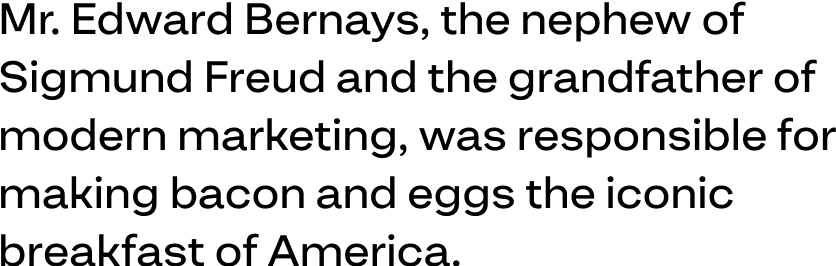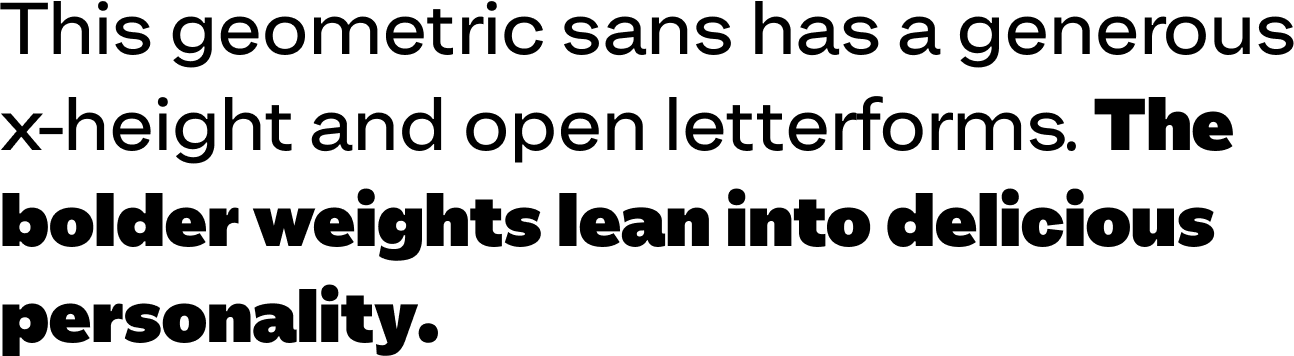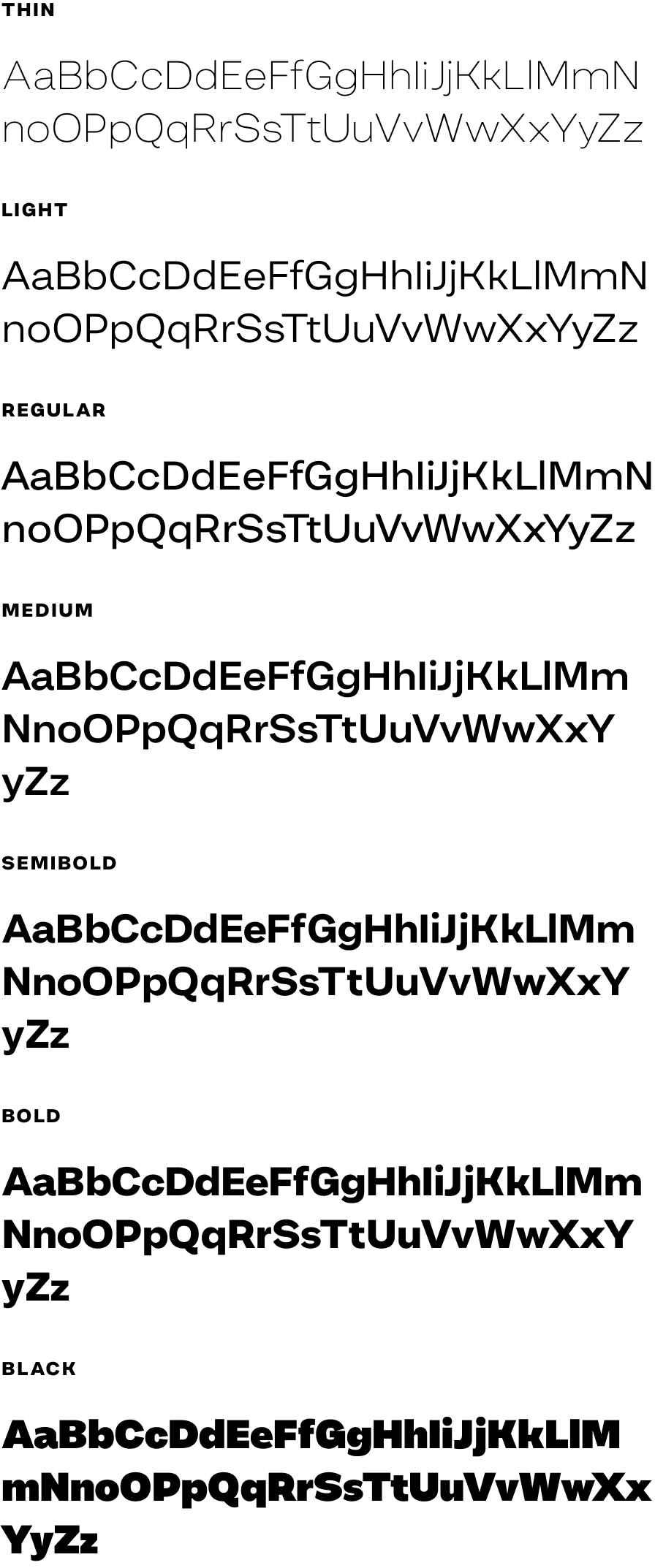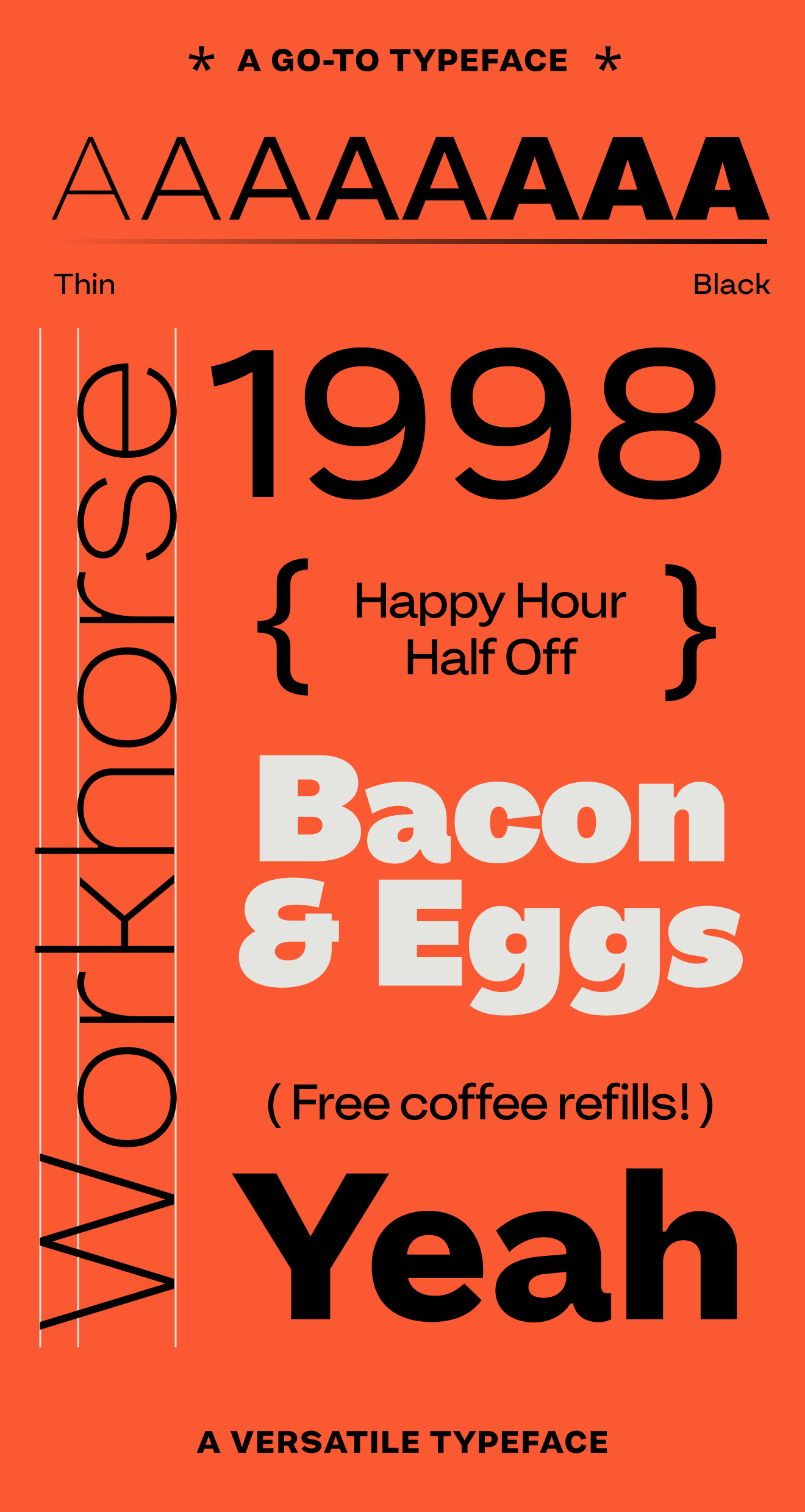
Workhorse Sans
Workhorse Sans is my foundry’s workhorse sans. Clean, sleek, confident, with seven weights and italics. The letterforms are open, with a generous x-height. This typeface is currently under development. You can see it in use on this site.
Workhorse Sans
Geometric sans
High x-height
Playful bolder weights